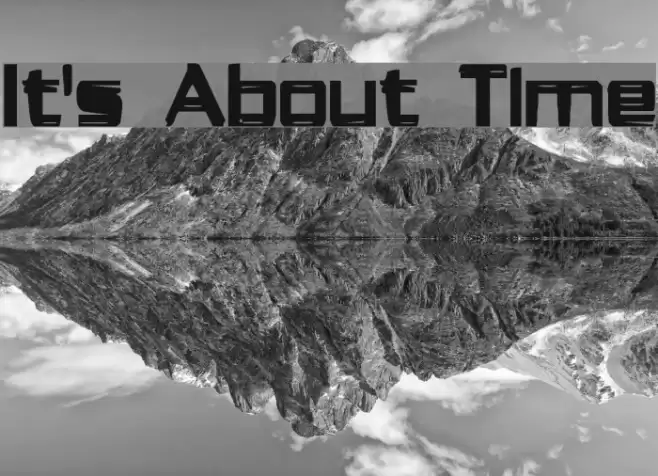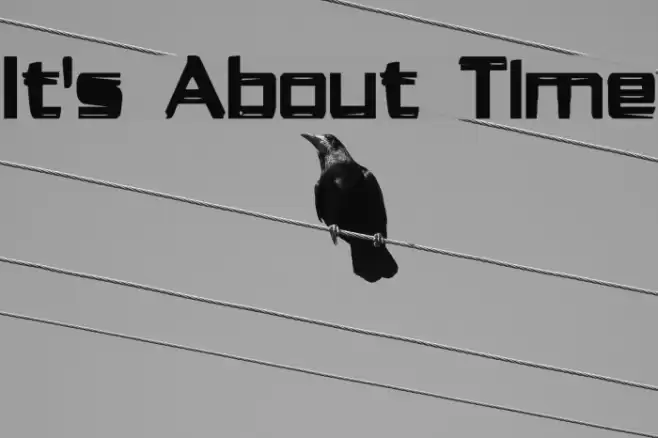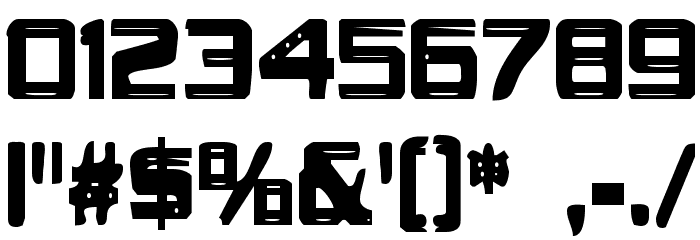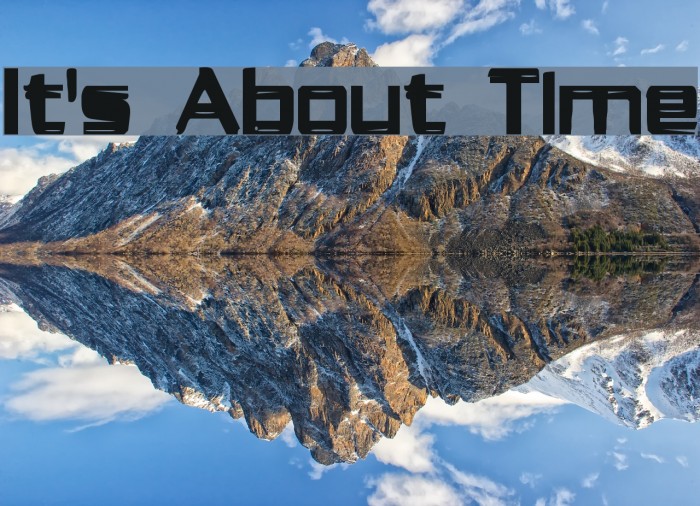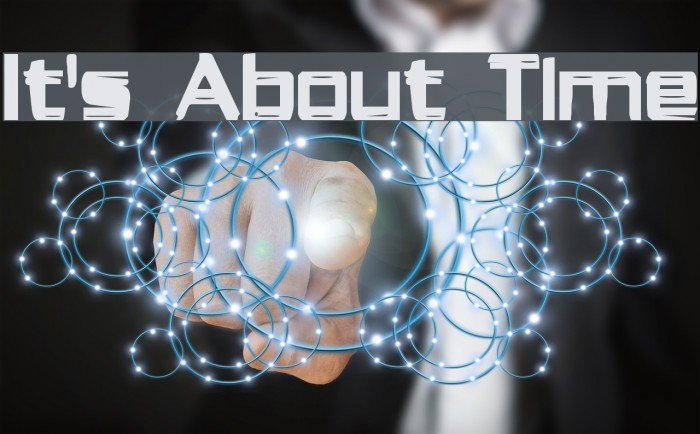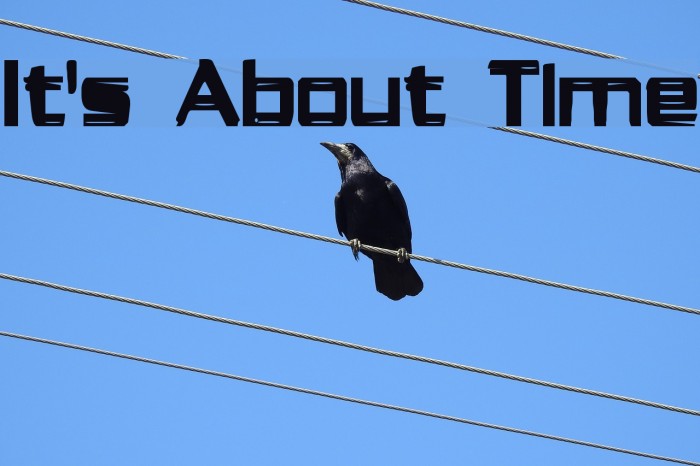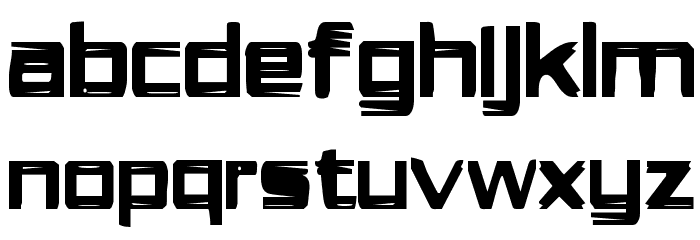
It's About Time Font
This font features a bold, futuristic design with a unique geometric structure. Each character is crafted with sharp angles and a distinct, blocky appearance, giving it a modern and edgy feel. The uppercase and lowercase letters maintain a consistent style, with the lowercase slightly more condensed. Numbers and special characters follow the same design principles, ensuring uniformity across all glyphs. The font's boldness and angularity make it stand out, perfect for projects that require a strong visual impact.
A bold, futuristic font with sharp angles and a geometric structure from Distorted Eroded fonts.
- Proposed Projects: Ideal for sci-fi themed designs, video game graphics, tech branding, and modern posters.